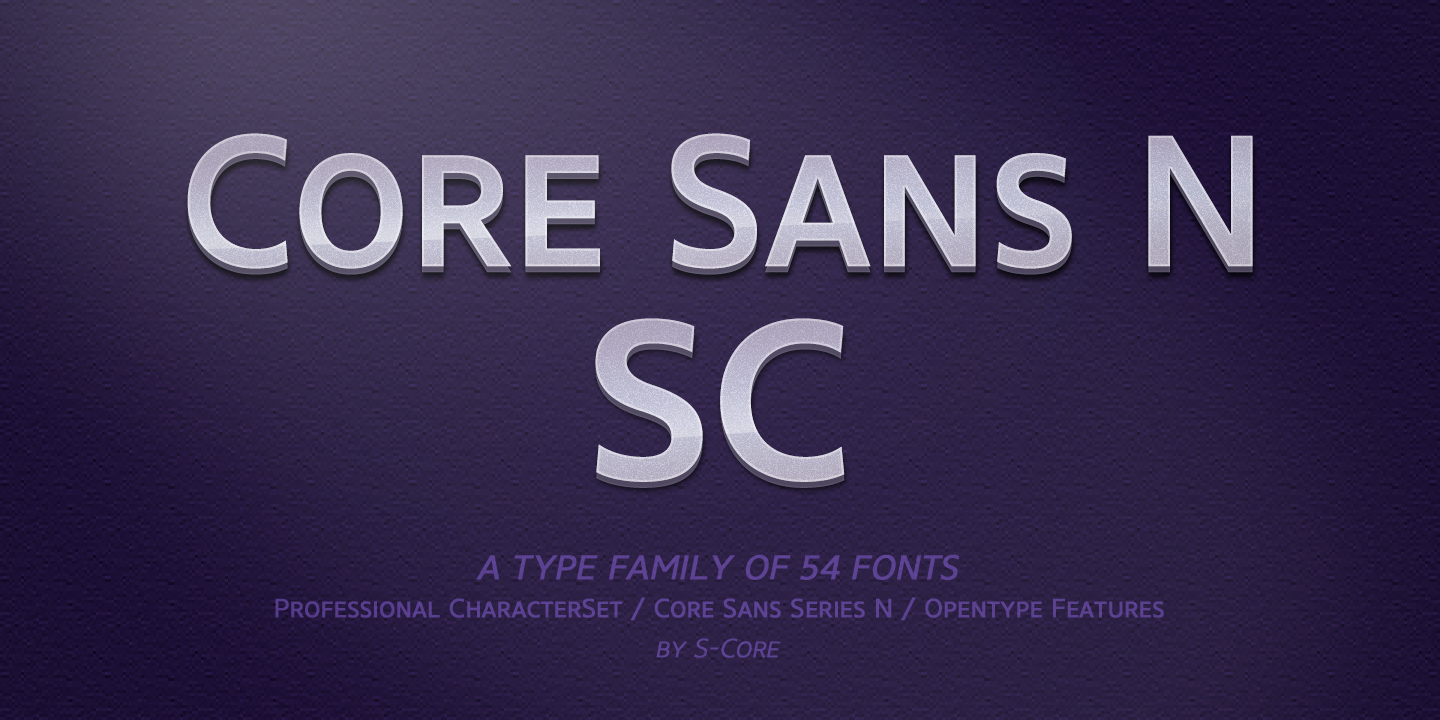
Core Sans N SC Font excels in professional corporate branding, essential business communications, fundamental tech interfaces, core banking systems, primary healthcare signage, basic educational materials, foundational legal documents, central government communications, standard industrial displays, and universal design applications. Its fundamental character makes it perfect for projects requiring systematic clarity and foundational visual appeal that establishes trust and reliability across diverse applications.
What makes Core Sans N SC Font exciting is its masterful embodiment of typographic fundamentals through clean small caps letterforms that represent the essential building blocks of effective communication design. The font features systematic proportions with foundational geometry that convey reliability and professionalism while maintaining exceptional readability for core business communications. Its fundamental character transforms ordinary text into expressions of systematic excellence that form the backbone of trustworthy institutional communications.
The Core Sans N SC Font family includes Regular, Bold, Light, Essential, System, Foundation, and Universal variations. Each style preserves the font's core essence while offering different levels of systematic weight and fundamental presence for creating reliable institutional graphics. The comprehensive character set includes standard symbols, systematic ornaments, foundational markers, and universal glyphs essential for genuine corporate and institutional typography projects.
Corporate institutions and fundamental businesses consistently choose Core Sans N SC Font Free Download for projects demanding authentic systematic typography solutions. The font's core character instantly establishes institutional credibility while ensuring clear communication across professional marketing channels. Its versatility spans from subtle fundamental touches to bold statements that celebrate the importance of systematic design principles and the essential role of foundational typography in building trustworthy communications.
Whether you're developing corporate brand identities, creating institutional marketing materials, or designing systematic communications, Core Sans N SC Font provides the perfect combination of fundamental authenticity and contemporary functionality. The font's systematically crafted letterforms ensure genuine core character while maintaining excellent performance across various institutional applications and professional business communications.
The institutional heritage of Core Sans N SC Font makes it exceptional for creating reliable connections with audiences who value systematic excellence and foundational quality. Its core precision and systematic appeal work seamlessly across traditional corporate materials and modern digital institutional platforms. The font performs fundamentally in both large-scale corporate displays and intimate professional communications.
Build on solid foundations with Core Sans N SC Font and discover how authentic systematic typography can enhance your corporate projects with genuine fundamental appeal and institutional sophistication. This remarkable typeface combines systematic tradition with contemporary functionality, making it indispensable for institutions seeking to establish unshakeable credibility through the timeless power of foundational design principles.